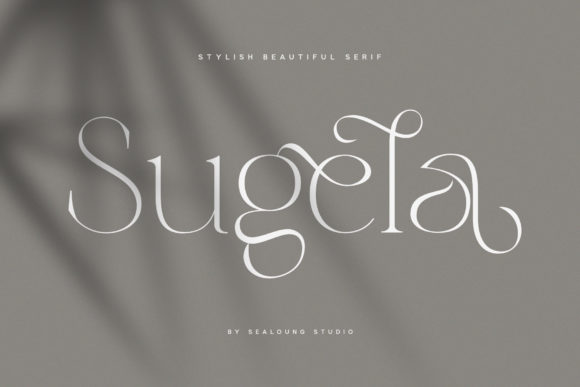
Journey into the realm of timeless elegance with Sugela Font, a captivating serif masterpiece designed to elevate your creative vision. Let your designs exude an air of sophistication and grace as you explore the boundless possibilities that await.
Embrace the allure of Sugela, a font family crafted with meticulous attention to detail, embodying the essence of classic typography. Its refined curves and graceful strokes evoke a sense of timeless beauty, making it the perfect choice for discerning designers seeking to create enduring impressions.
With Sugela, your designs will transcend the ordinary, capturing the essence of luxury and refinement. Its versatile nature lends itself effortlessly to a myriad of projects, from elegant logos and striking headlines to captivating magazine layouts and alluring branding materials.
Unlock a world of creative expression with Sugela's extensive character set, boasting a treasure trove of ligatures and alternates that add a touch of individuality to your designs. Experiment with endless combinations to create captivating visual compositions that leave a lasting impact.
Whether you're a seasoned designer or embarking on your creative journey, Sugela is your trusted companion, guiding you towards design excellence. Its user-friendly charm makes it accessible to all, empowering you to unleash your imagination and create masterpieces that resonate with your audience.
Step into the spotlight with Sugela, the ultimate font for design visionaries. Its timeless appeal and unwavering elegance will elevate your projects to new heights, leaving a trail of admiration and inspiration in its wake.